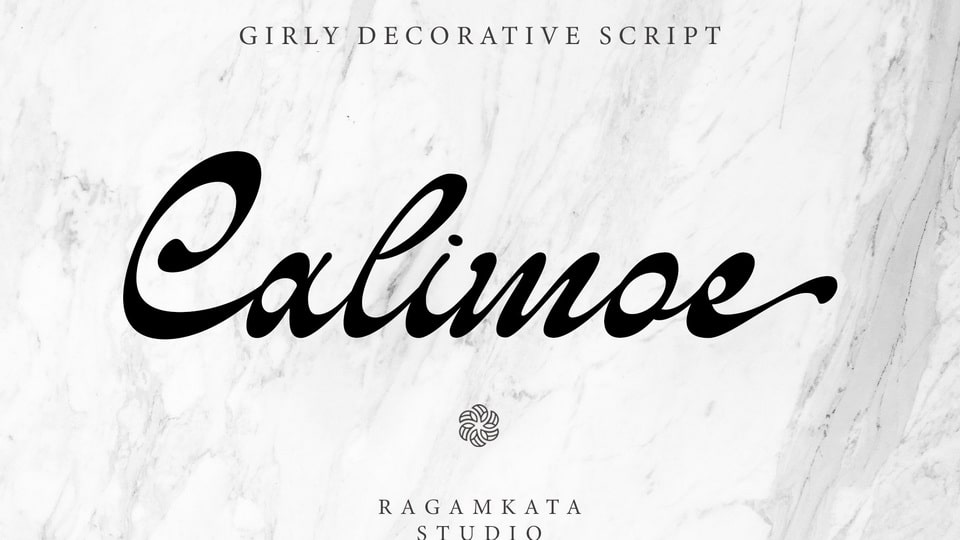
Download Calimoe font a meticulously crafted script that seamlessly blends elegance with a touch of modernity. While being stylish, Calimoe font remains highly legible.